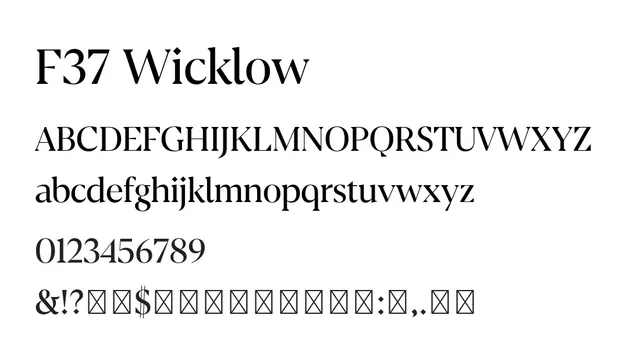
F37 Wicklow
F37 Wicklow, elegant, formal
Transitional serif with strong contrast and geometric serifs, elegant and formal for editorial and luxury applications.
Can be used for headlines and display sizes in editorial and luxury brands. The high contrast and strong serifs make it best suited for larger display work rather than body text. Works beautifully in editorial layouts with generous spacing.
Pair with F37 Tinker for a balanced editorial suite combining formal serif with modern humanist sans-serif.